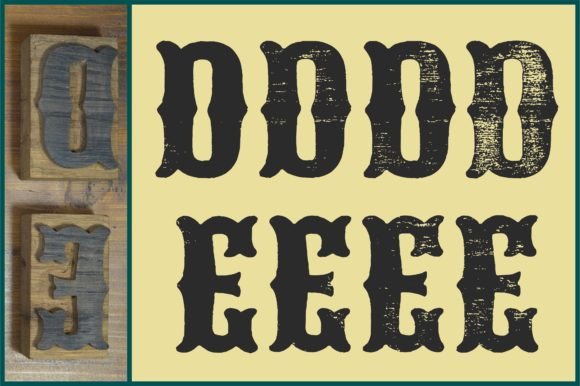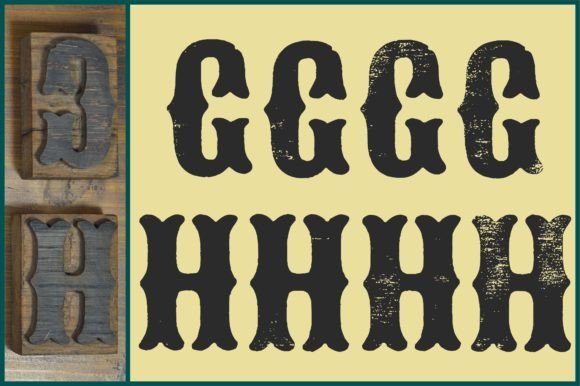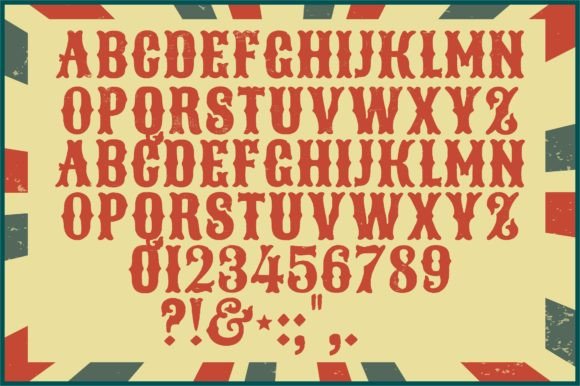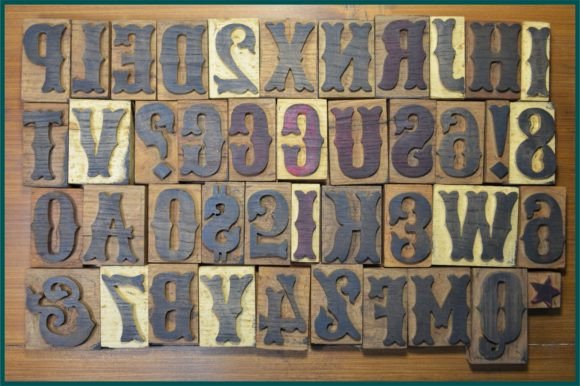
Circus Font: A Timeless Typeface Born from Traditional Letterpress
The Circus Font is a unique and captivating typeface that has been crafted using a traditional letterpress technique. In an era dominated by digital designs, this font stands out for its tactile and authentic feel. But have you ever wondered how this font was created? In this article, we’ll take a closer look at the making of Circus Font and explore its distinctive characteristics.
The Making of Circus Font
The creation of Circus Font is a labor-intensive process that involves a combination of traditional craftsmanship and modern technology. Each glyph was carefully carved from wood, pressed, scanned, and then digitized to produce a high-quality typeface. This process gives the font its distinctive texture and feel, setting it apart from digitally created designs.
Carving and Pressing
The journey of creating Circus Font begins with carving each glyph from wood. Skilled craftsmen carefully hand-carve each character, taking care to ensure that every detail is precise and accurate. The wooden blocks are then pressed onto paper or cardstock, creating a tactile impression of the character. This traditional letterpress technique gives the font its unique texture and authenticity.
Scanning and Digitization
Once the glyphs have been carved and pressed, they are scanned using high-resolution scanners. The scanned images are then digitized using specialized software, which allows the craftsmen to refine the characters and create a digital version of the font. This process involves careful attention to detail, as the digital version must accurately reflect the texture and feel of the original letterpress design.
The Benefits of Traditional Letterpress
The traditional letterpress technique used to create Circus Font offers several benefits. For one, it gives the font a tactile and authentic feel that is hard to replicate with digital designs. The texture and imperfections of the letterpress process add a level of character and personality to the font, making it more engaging and visually appealing.
A Tactile and Real Typeface
One of the standout features of Circus Font is its tactile and real appearance. Unlike digitally created designs, which can often appear sterile and uniform, Circus Font has a warm and organic feel. The texture of the letterpress process gives the font a sense of depth and dimensionality, making it perfect for designs that require a touch of authenticity and character.
Uses for Circus Font
Circus Font is a versatile typeface that can be used in a variety of design applications. Its unique texture and authentic feel make it perfect for:
- Headings and titles: Circus Font is ideal for use in headings and titles, where its bold and eye-catching appearance can really make a design stand out.
- Branding and packaging: The font’s tactile and authentic feel make it perfect for use in branding and packaging design, where it can add a touch of personality and character to a product.
- Invitations and stationery: Circus Font is also well-suited to use in invitations and stationery, where its unique texture and feel can add a touch of elegance and sophistication.
Circus Font is a unique and captivating typeface that has been crafted using a traditional letterpress technique. Its tactile and authentic feel, combined with its versatility and range of uses, make it a valuable addition to any designer’s toolkit. Whether you’re a designer, crafter, or simply someone who appreciates the art of typography, Circus Font is definitely worth checking out.